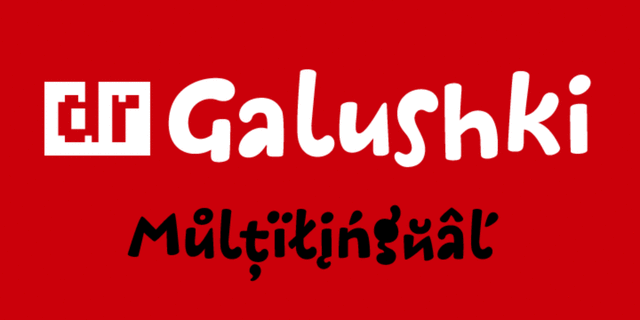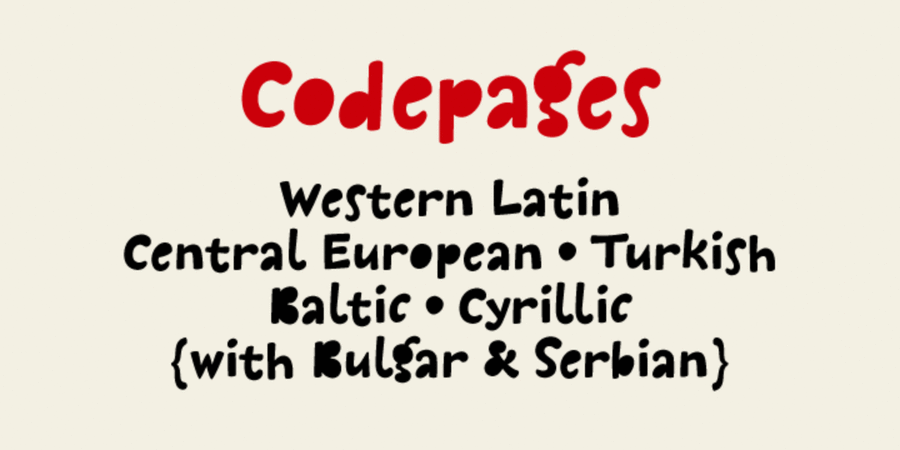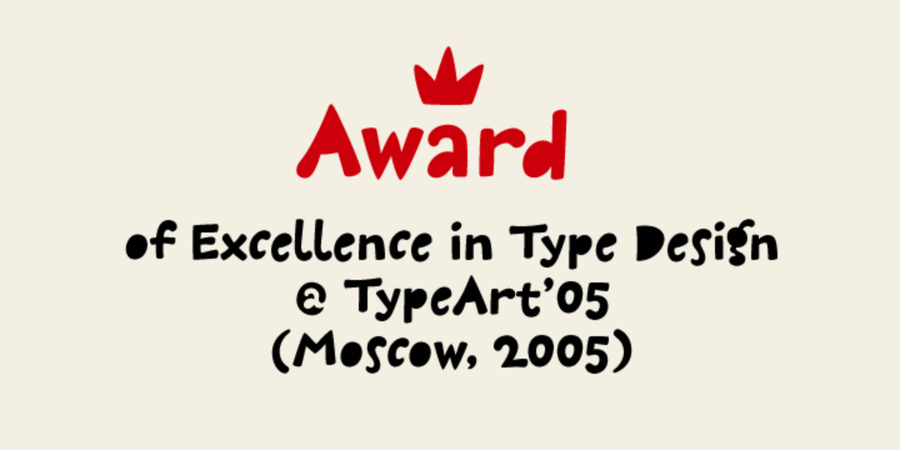
The holeless version of Galushki. This is a soft kind and playful font, ideal for comics, toys, children's books, packaging and promotional products. The typeface was designed by Dmytro Rastvortsev in 2005-2010.
leaping, affable, cheerful, provocative, funny, friendly, good-natured, kind, glad, slovenly, playful, mischievous, restless, agile, original, fresh, ripe, delicious, Soft, artless, naive, children, cartoonish, festive, dynamic, cute, witty, home, summer, happy, cool, nice, vernacular, fruit, berry, juicy